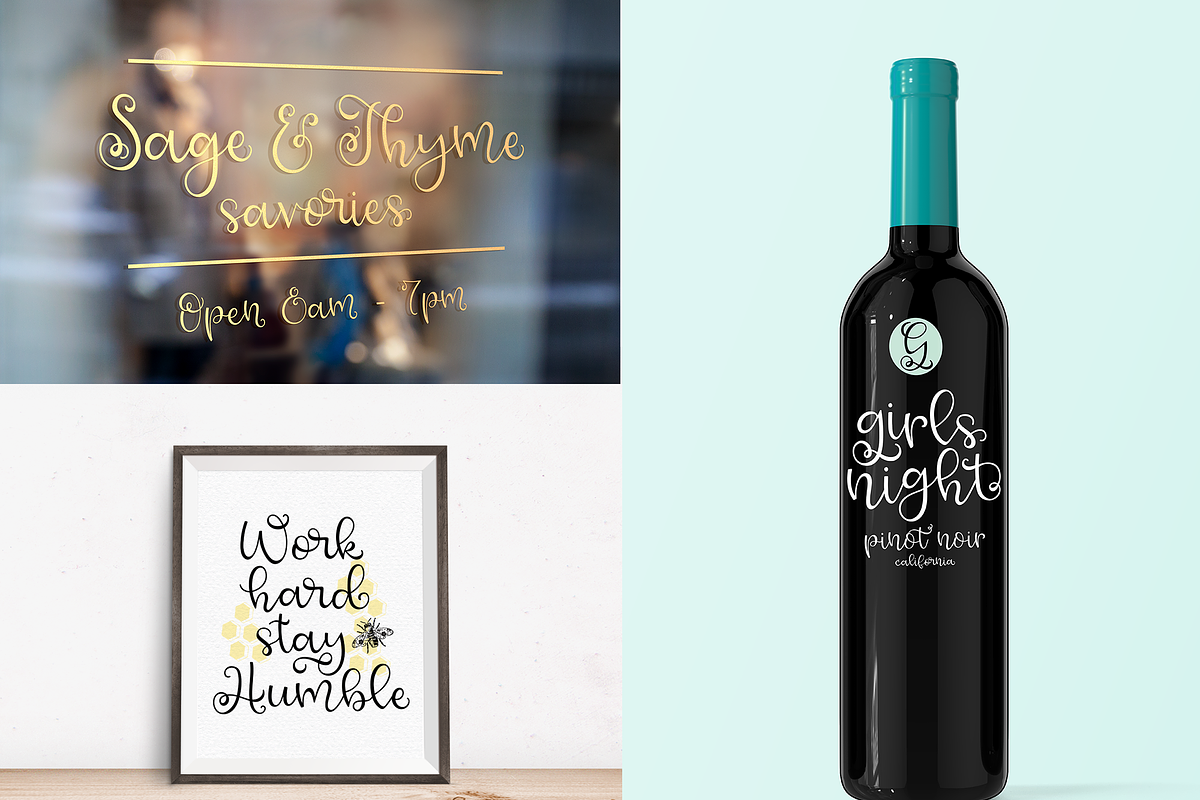
Honey Bumbles, a curly round script
Honey Bumbles is a sweet and bubbly script font with curly details and rounded letterforms that add charm to any project. It’s perfect for greeting cards, children’s designs, party invitations, logos, and anything that needs a cute, friendly touch.
With its loopy strokes and hand-drawn style, Honey Bumbles brings a playful energy to your designs—ideal for projects that are fun, lighthearted, and creative.
- alternate glyphs for selected characters
- initial lowercase alternates for shown characters
- terminal lowercase alternates for shown characters
- ligatures for selected double letter combinations
- 4 options for ampersands
Great for: Kids’ designs, party invites, greeting cards, quotes, logos, social media